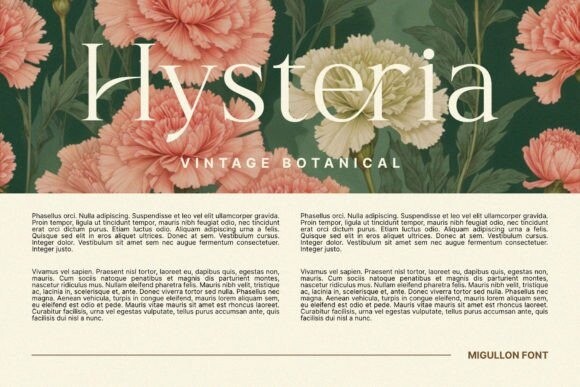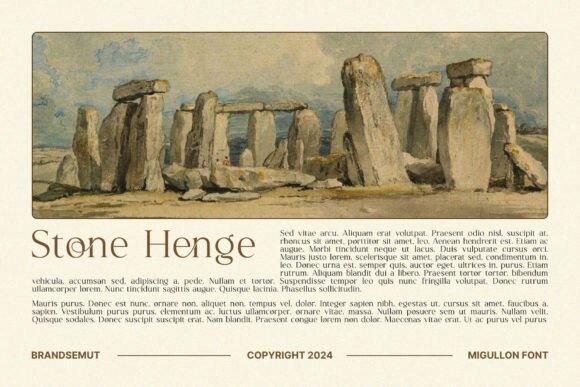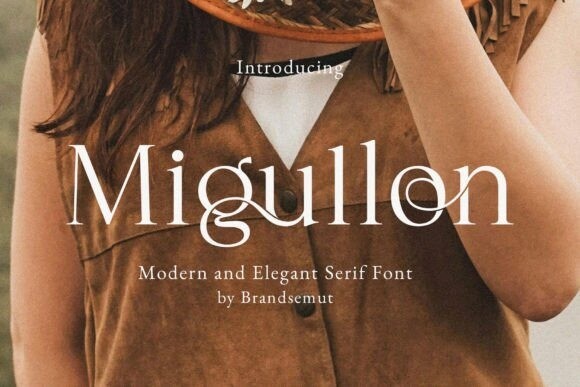
Migullon Font
Designer: BrandSemut
Migullon Font is a modern and classy typeface, best used as a display for headings, logos, branding, magazines, product packaging, and invitations. Migullon comes with clean lines and smooth curves give any project an extra touch of class.